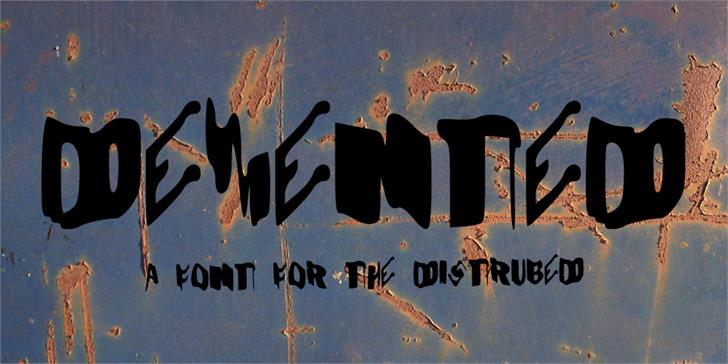
Introducing Demented Font, a display font family that screams personality and attitude. Dive into a world of creative freedom as Demented takes you on a journey of artistic exploration. Our team of experienced and passionate typographers, GraphicsBam Fonts, has meticulously crafted Demented to offer you a font style that is both captivating and unconventional.
Whether you're a seasoned designer or a newbie looking to make a statement, Demented is your perfect companion. It's a font that's as versatile as it is visually striking. Its unique letterforms, inspired by the raw energy of Franklin Gothic, are sure to add an edge to your designs.
Picture this: You're working on a t-shirt design, and you want it to stand out from the rest. Demented steps up to the plate, ready to unleash its charm. Its playful and slightly tipsy appearance will instantly grab attention, inviting viewers to take a closer look.
But Demented isn't just limited to t-shirts. Its captivating nature shines through in various applications. Create eye-catching posters that demand attention, design stunning logos that leave a lasting impression, or add a touch of fun to your social media posts. The possibilities are endless.
With Demented, you'll experience the joy of creating designs that are truly unique. Its versatile nature allows you to explore different styles and approaches, pushing the boundaries of your creativity. Unleash your imagination and let Demented guide you to new heights of artistic expression.
So, whether you're a seasoned pro or just starting out, embrace the Demented spirit and watch your designs come alive. Get ready to make a statement, captivate your audience, and leave an unforgettable mark on the world of design. Welcome to the world of Demented Font - where creativity knows no bounds.